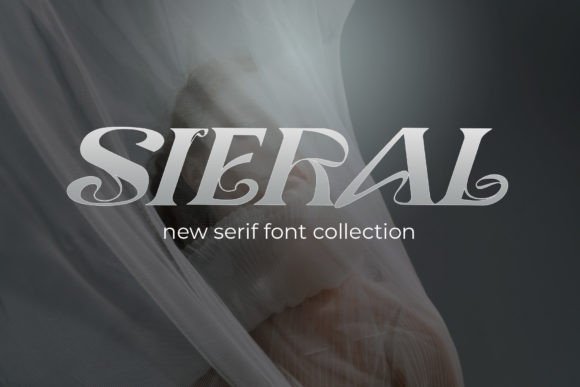
Step into the realm of typography with Sieral Font, an exquisite serif typeface that will captivate your audience with its timeless elegance and modern appeal. Expertly crafted by the renowned artnivora.std, this captivating font family exudes sophistication and professionalism, making it the perfect choice for corporate letters, social media campaigns, and a myriad of creative endeavors.
Immerse yourself in the world of Sieral Font, where every letterform is a testament to the power of simplicity and uniqueness. Its graceful curves and sharp angles dance harmoniously on the page, creating a visual masterpiece that commands attention without overpowering the content.
Whether you're crafting a captivating logo, designing a sleek brochure, or captivating your followers on social media, Sieral Font is your trusted companion. Its versatility knows no bounds, empowering you to express your creativity in countless ways.
Indulge in the myriad of possibilities that await with Sieral Font. Experience the joy of transforming your words into works of art, conveying your message with both style and substance. Embrace the power of typography and watch your creative visions soar to new heights.